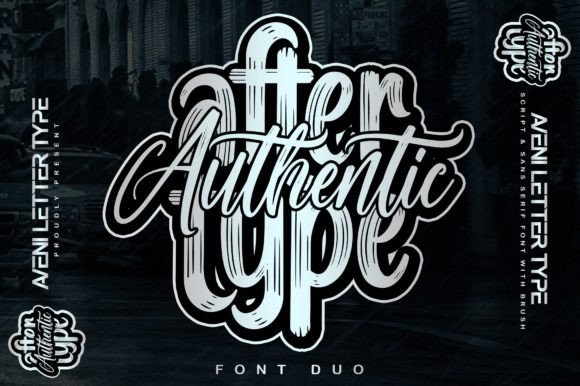
Introducing Authentic After Type Font - A Script Font Duo That Will Ignite Your Creativity!
Immerse yourself in the world of captivating typography with Authentic After Type Font, a meticulously crafted script font duo that will transform your creative visions into stunning realities. Designed with an unwavering attention to detail, this font exudes elegance and charm, featuring a graceful script font and a clean, modern sans serif companion.
Step into a world where your words come alive with Authentic After Type Font. Whether you're a seasoned designer or just starting your creative journey, this font will elevate your projects to new heights. Its versatility knows no bounds, making it the perfect choice for a myriad of applications, from apparel branding and daily quotes to tote bag designs and wedding invitations.
With Authentic After Type Font, you can:
* Unleash your creativity and design apparel that speaks to your unique style.
* Create stunning daily quotes that inspire and uplift your audience.
* Design tote bags and handbags that are both functional and fashion-forward.
* Craft product packaging that exudes sophistication and elegance.
* Design eye-catching headers and posters that leave a lasting impression.
* Create merchandise that truly stands out from the crowd.
* Design wedding invitations that are as unique and special as your love story.
* Create social media posts and greeting cards that captivate and engage your audience.
Let Authentic After Type Font be your creative partner, guiding you towards typographic excellence. Experience the joy of seamless kerning and meticulously crafted letterforms that work in perfect harmony. Your designs will radiate with professionalism and sophistication, leaving an unforgettable impact on your audience.